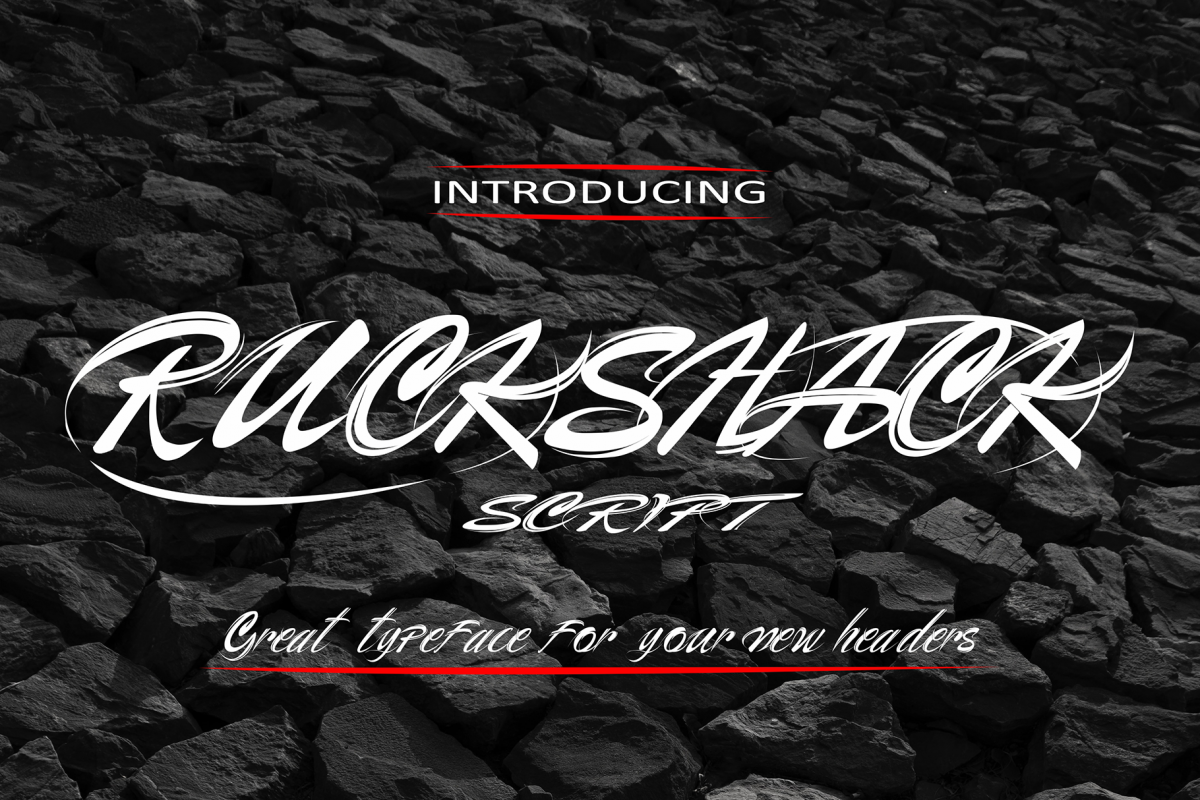
Ruckshack
Ruckshack is a natural script font that has power on each stroke that is very dynamic and characterized. Ruckshack is very suitable for various design, branding, product packaging, clothing line, banner, etc.